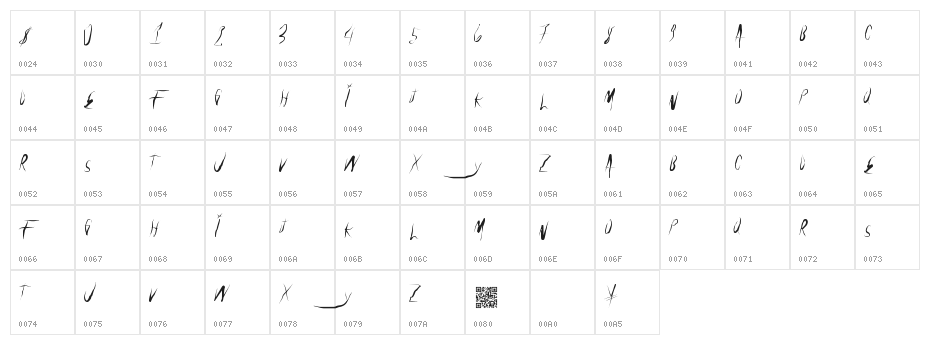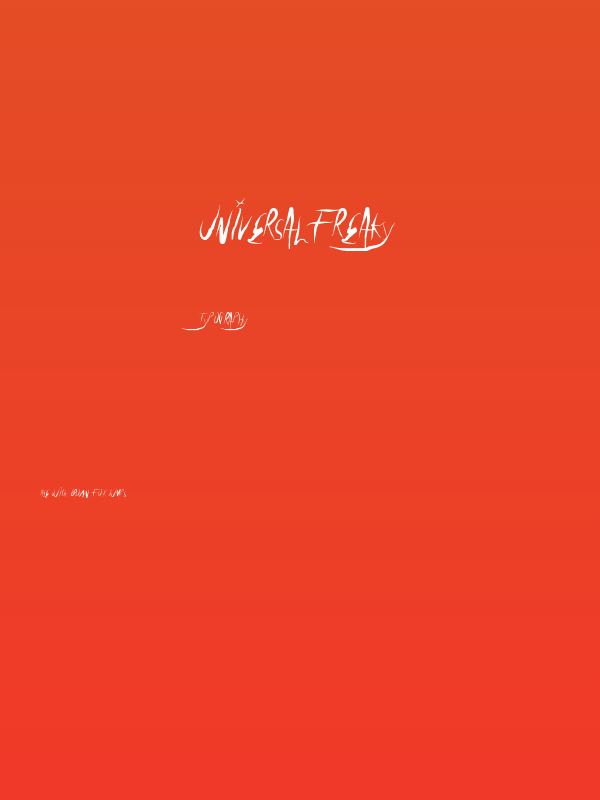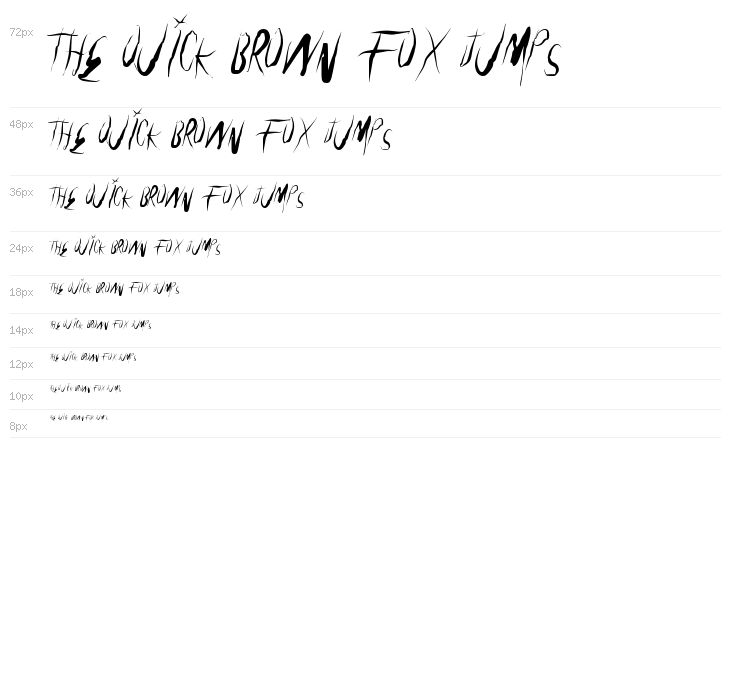
UniversalFreaky Font
| Cas d'utilisation | Logos, Headlines, Artistic projects |
| Projets proposés | Ideal for album covers, posters, graffiti art, and any project needing a bold, unconventional aesthetic. |